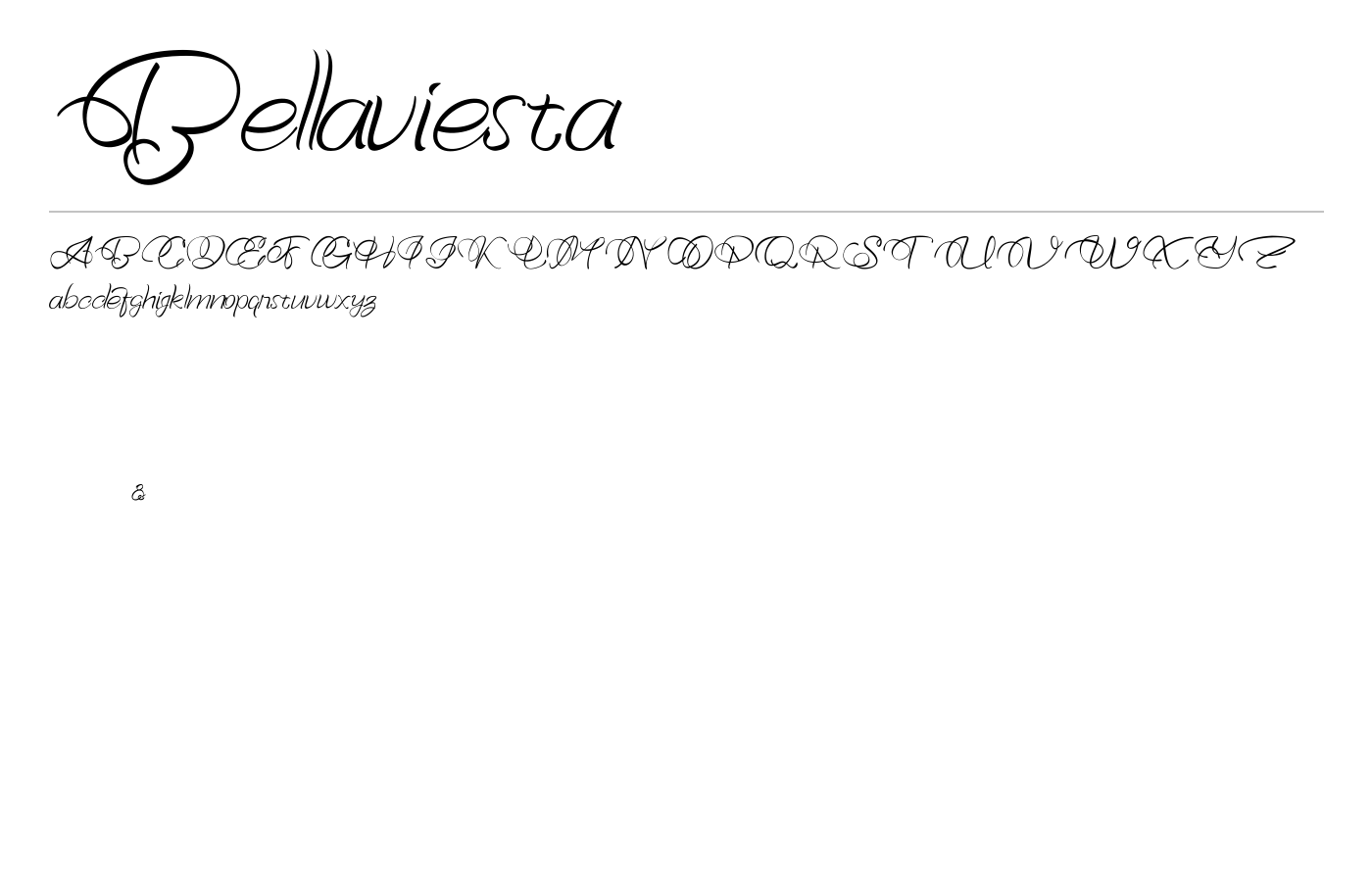
Bellaviesta is an elegant script font characterized by delicate, flowing strokes and intricate swashes that create a sophisticated and graceful appearance. Its thin weight and high contrast in stroke thickness give it a refined, luxurious feel perfect for upscale branding, invitations, and decorative headlines. This font shines in contexts where a touch of classic charm and ornamental beauty is desired, adding a sense of artistry and elegance.
Bellaviesta Font
About Bellaviesta Font